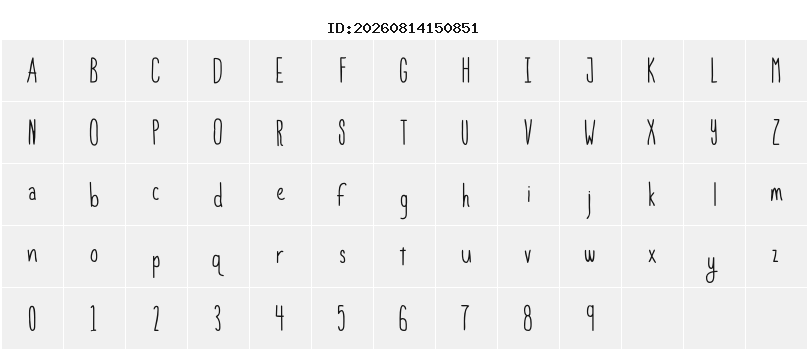
Strawberry Avalanche Preview
• Font Name: Strawberry Avalanche
• Full Font Name: StrawberryAvalanche-Regular
• Designer: =^_^=
• Manufacturer: Skyhaven
About Strawberry Avalanche.otf
Strawberry Avalanche.otf is a modern, elegant sans-serif font designed for ultimate readability and visual harmony. Perfect for branding, headlines, web design, and print materials.